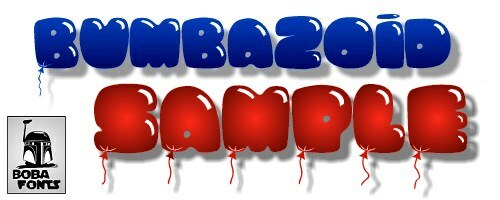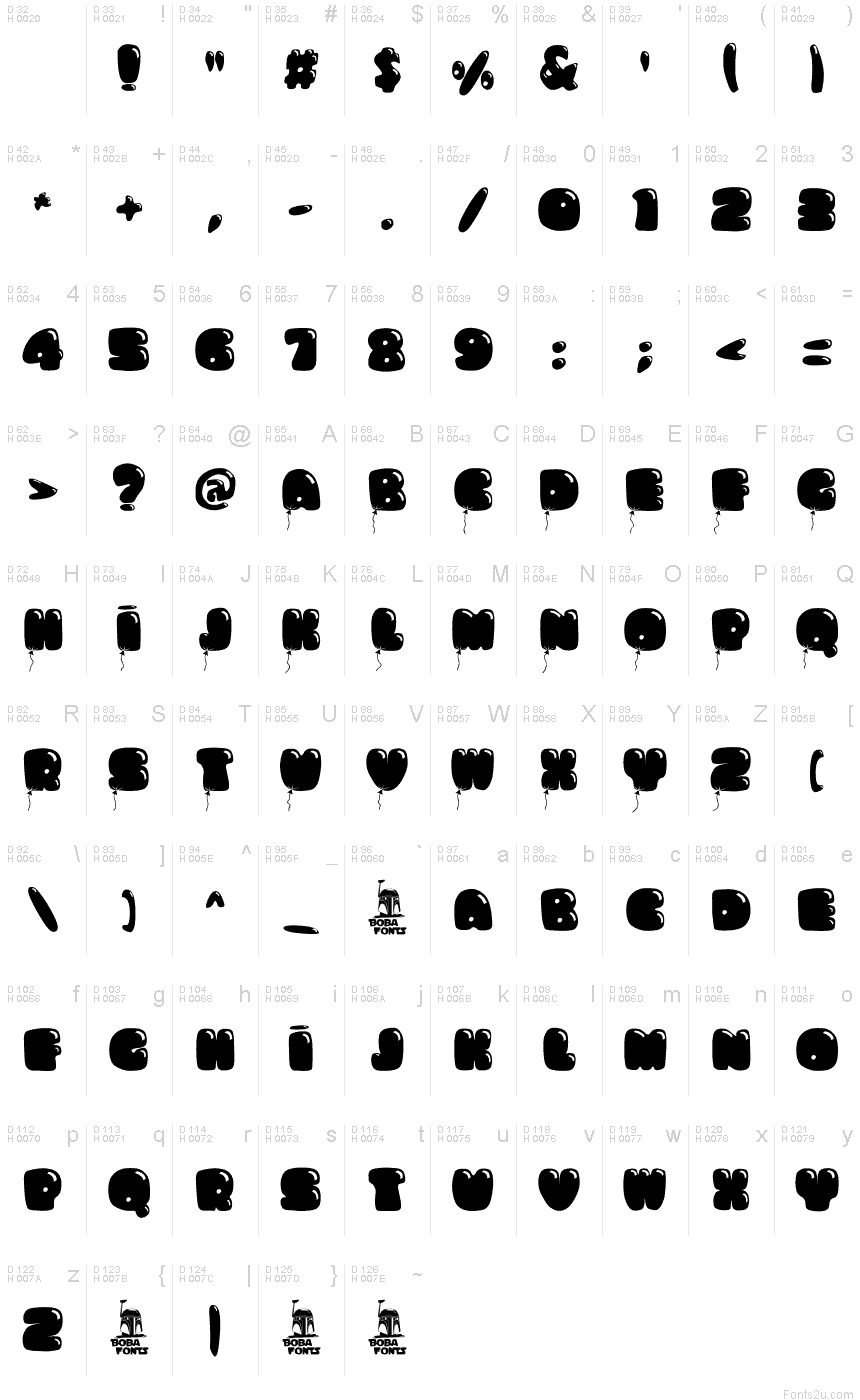
Bumbazoid
Bumbazoid font by Boba Fonts - Davide Canavero is a free cartoon display typeface that looks like it’s been blown up from inky balloons. Each letter is fat, glossy, and a little wobbly, with squishy rounded corners and tiny “shine” spots that make the words feel alive. The tight, chunky shapes create a bold, candy-like texture that jumps off the page even at a glance.
Using Bumbazoid, you can dial up the fun on kids’ book covers, slime or monster-themed games, birthday posters, toy packaging, party invitations, and playful YouTube thumbnails. This free font shines when set huge and loud; pair it with a simple rounded sans serif in smaller text to keep things readable while letting Bumbazoid handle all the goofy, bubbly energy.